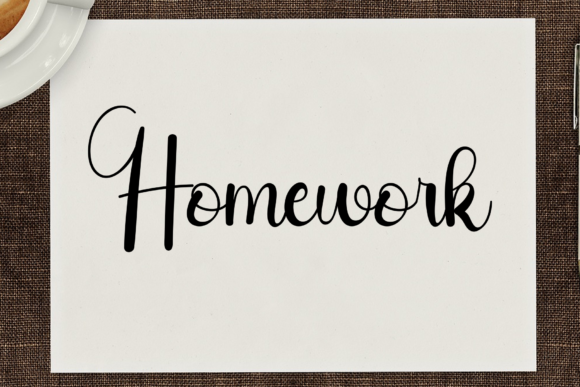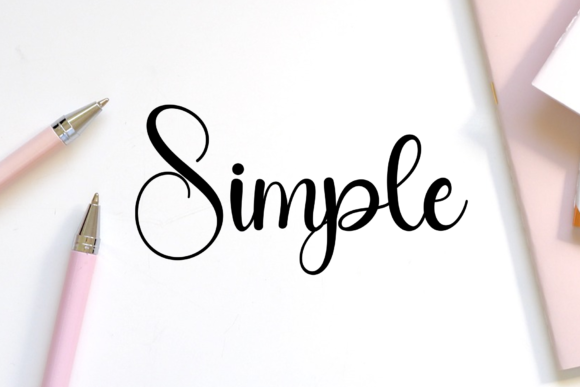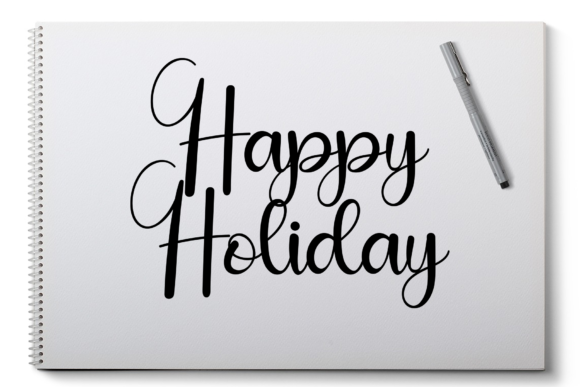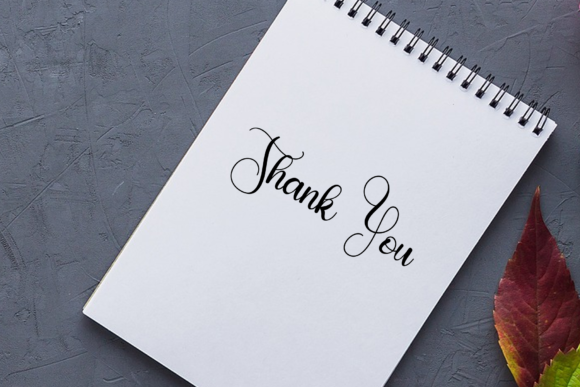
Coffee Font: Elevate Your Designs with a Smooth and Elegant Handwritten Style
Are you searching for a font that can add a touch of sophistication and elegance to your designs? Look no further than the Coffee Font, a beautiful handwritten font that is sure to take your creative projects to the next level. With its smooth, flowing lines and balanced character, this font is perfect for designers and crafters looking to add a personal touch to their work.
What is Coffee Font?
Coffee Font is a type of handwritten font that is designed to be both elegant and approachable. Its smooth, cursive lines give it a sophisticated feel, while its flowing style makes it perfect for use in a wide range of design applications. Whether you’re creating a logo, a poster, or a website, Coffee Font is sure to add a touch of class and refinement to your work.
Key Features of Coffee Font
- Smooth and Elegant Lines: Coffee Font features smooth, flowing lines that give it a sophisticated and elegant feel.
- Balanced Character: The font has a balanced character that makes it perfect for use in a wide range of design applications.
- Handwritten Style: Coffee Font has a beautiful handwritten style that adds a personal touch to any design.
- Versatile: The font is versatile and can be used in a wide range of design applications, from logos and posters to websites and social media graphics.
Why Use Coffee Font?
There are many reasons why designers and crafters love Coffee Font. Here are just a few:
- Adds a Personal Touch: Coffee Font’s handwritten style adds a personal touch to any design, making it perfect for use in creative projects.
- Elegant and Sophisticated: The font’s smooth, flowing lines give it an elegant and sophisticated feel that’s perfect for high-end designs.
- Easy to Read: Despite its elegant style, Coffee Font is easy to read, making it perfect for use in body text and other applications where readability is important.
- Versatile: Coffee Font can be used in a wide range of design applications, from logos and posters to websites and social media graphics.
How to Use Coffee Font
Using Coffee Font is easy. Here are a few tips to get you started:
- Pair it with Other Fonts: Coffee Font pairs well with other fonts, so don’t be afraid to experiment with different combinations.
- Use it in Headlines and Titles: Coffee Font’s elegant style makes it perfect for use in headlines and titles.
- Add it to Your Website: Coffee Font can be used on websites, making it perfect for use in headings, titles, and other design elements.
- Experiment with Different Colors: Coffee Font looks great in a variety of colors, so don’t be afraid to experiment and find the perfect shade for your design.
Coffee Font is a beautiful, elegant, and flowing handwritten font that is perfect for designers and crafters looking to add a personal touch to their work. With its smooth, flowing lines and balanced character, this font is sure to elevate your designs and take your creative projects to the next level. So why wait? Download Coffee Font today and see how it can add a touch of sophistication and elegance to your designs!
This is a smooth, elegant, and flowing handwritten font. It has a beautiful and balanced character and as a result, it fits into a wide set of designs. Add to your most creative ideas and watch how they come to life!